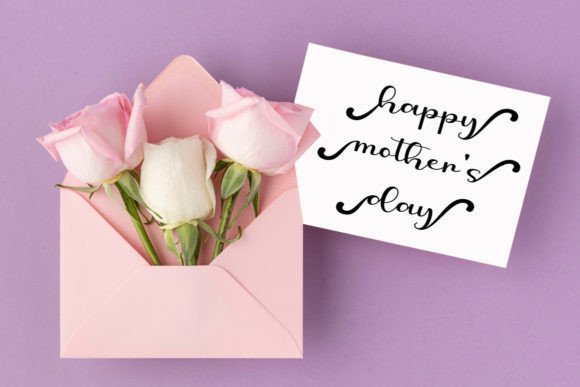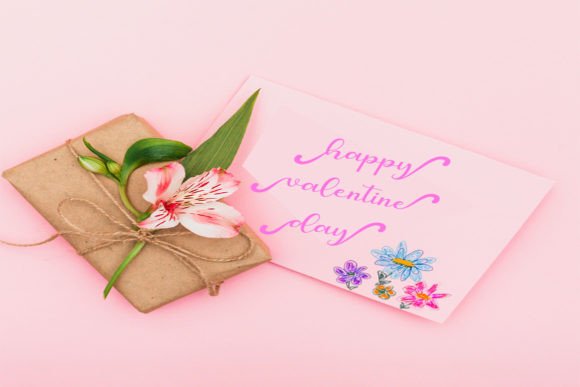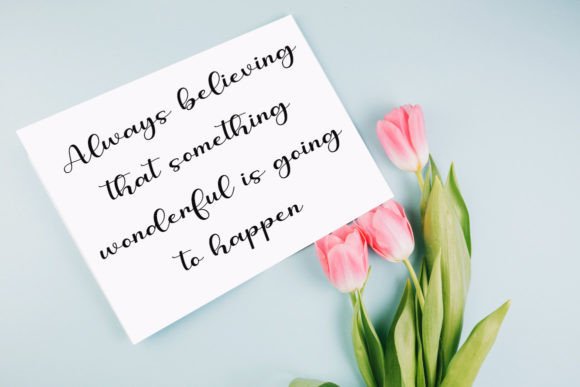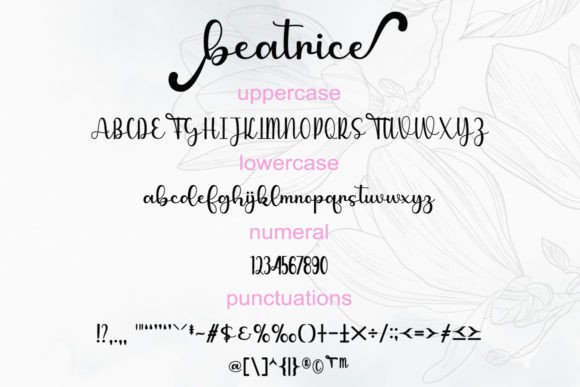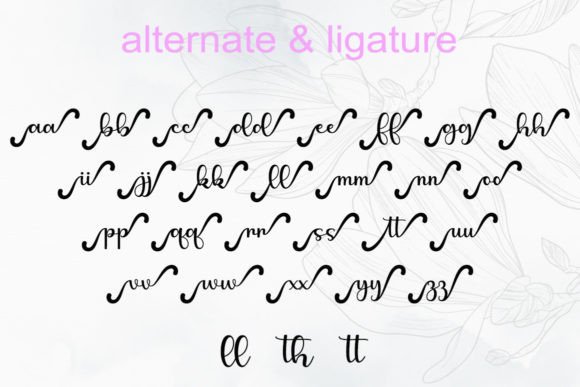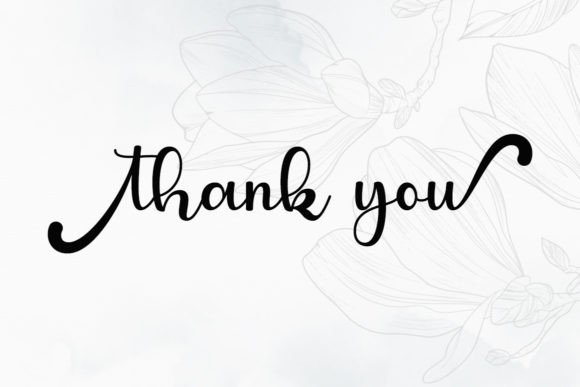
Introducing Beatrice Font: The Enchanting Script Font for Creative Projects
Are you looking for a font that can add a touch of elegance and sophistication to your creative projects? Look no further than Beatrice Font, a beautiful script font that is perfect for a wide range of applications, from logos and branding to quotes, clothing, tote bags, business cards, websites, and more.
A Font that Falls into the Heart
Beatrice Font is an enchanting script font that is designed to capture the heart of designers and crafters alike. Its elegant and flowing lines make it perfect for creating beautiful and eye-catching designs that are sure to leave a lasting impression. Whether you’re working on a logo, a quote, or a website, Beatrice Font is the perfect choice for adding a touch of class and sophistication.
One of the best things about Beatrice Font is its versatility. It can be used for a wide range of creative projects, including:
- Logos and branding: Create a beautiful and memorable logo for your business or brand with Beatrice Font.
- Quotes and posters: Add a touch of elegance to your quotes and posters with this stunning script font.
- Clothing and accessories: Use Beatrice Font to create beautiful and eye-catching designs for clothing, tote bags, and other accessories.
- Business cards and stationery: Add a touch of sophistication to your business cards and stationery with this elegant font.
- Websites and blogs: Use Beatrice Font to create a beautiful and professional-looking website or blog.
Beatrice Font is PUA encoded, which means that you can access all the glyphs and ligatures with ease. This makes it easy to create beautiful and intricate designs without having to worry about complicated font encoding.
Why Choose Beatrice Font?
So why choose Beatrice Font for your creative projects? Here are just a few reasons:
- Elegant and sophisticated design: Beatrice Font has a beautiful and elegant design that is sure to impress.
- Versatile: This font can be used for a wide range of creative projects, from logos and branding to quotes and websites.
- Easy to use: Beatrice Font is PUA encoded, making it easy to access all the glyphs and ligatures.
- High-quality: This font is designed to provide high-quality results, even at large sizes.
Tips for Using Beatrice Font
Here are a few tips for using Beatrice Font in your creative projects:
- Use it sparingly: Beatrice Font is a elegant and sophisticated font, so use it sparingly to add a touch of class to your designs.
- Experiment with different sizes: This font looks great at a wide range of sizes, so experiment with different sizes to find the one that works best for your project.
- Pair it with other fonts: Beatrice Font looks great when paired with other fonts, so try experimenting with different font combinations to find the one that works best for your project.
In conclusion, Beatrice Font is a beautiful and enchanting script font that is perfect for a wide range of creative projects. Its elegant and sophisticated design makes it a great choice for adding a touch of class and sophistication to your designs. With its PUA encoding and high-quality design, Beatrice Font is a great choice for designers and crafters alike.